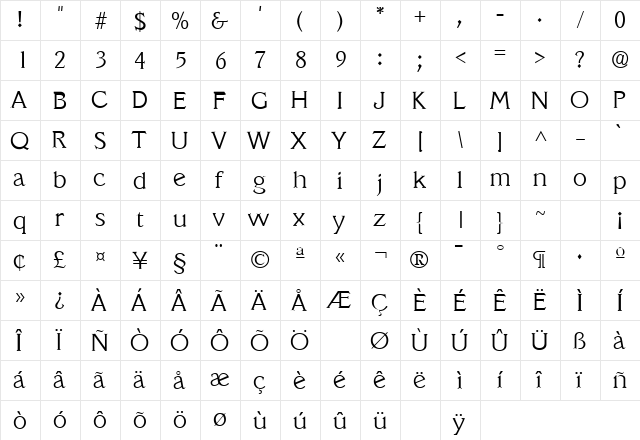
VeracruzLH Regular
VeracruzLH offers clean, dependable letterforms without strong stylistic allegiance, making it a practical choice for designers who need flexibility.